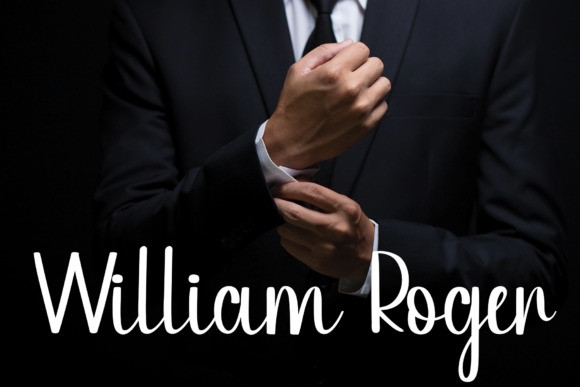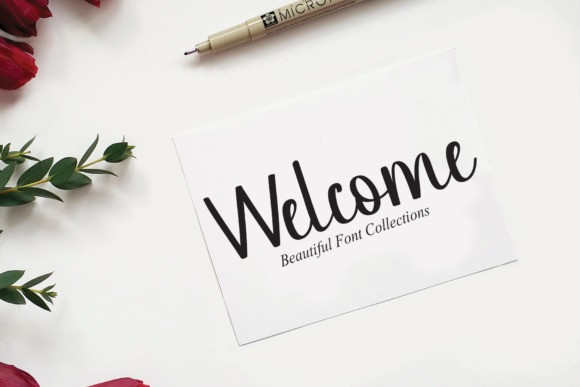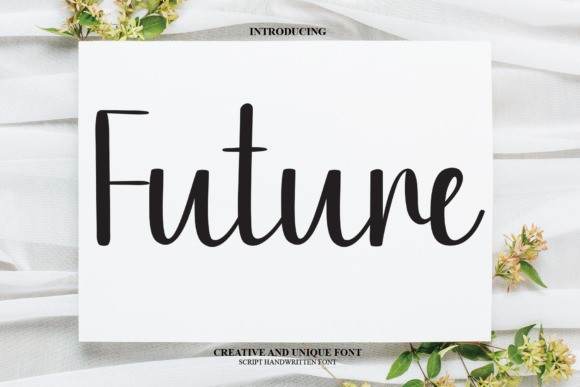
Future Font
Future Font, This is a sweet handwritten font that was crafted with great care to produce the expected results. This font can be used to write various kinds of products according to their individual needs.
Future View all Glyphs The quick brown fox jumps over the lazy dog